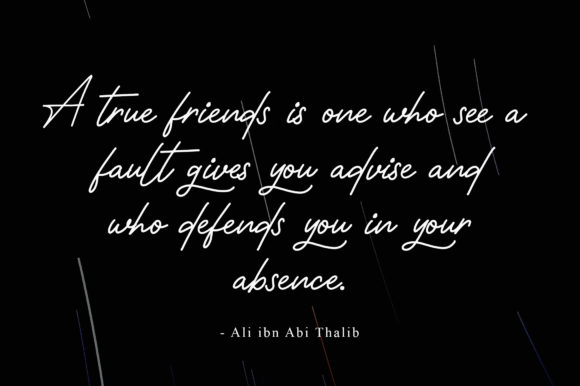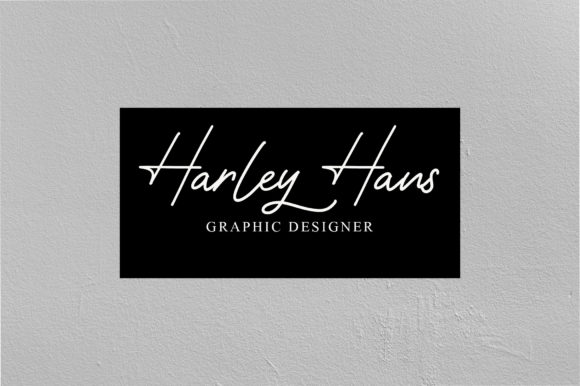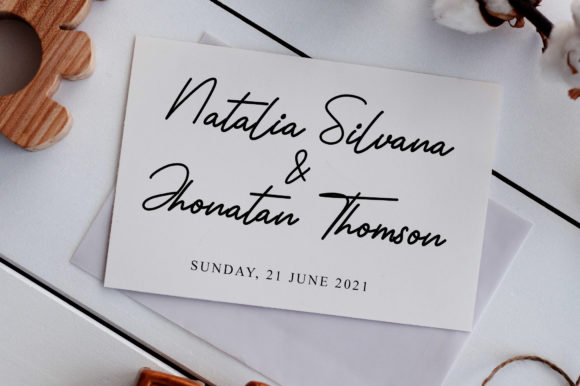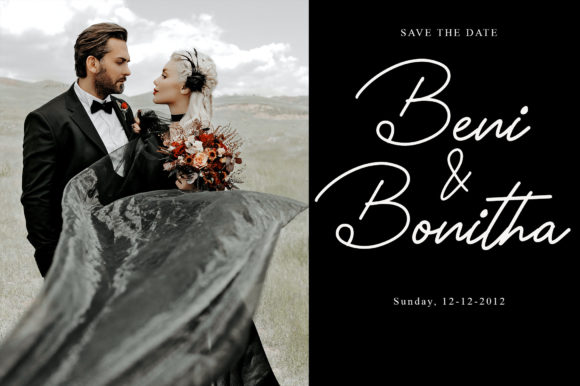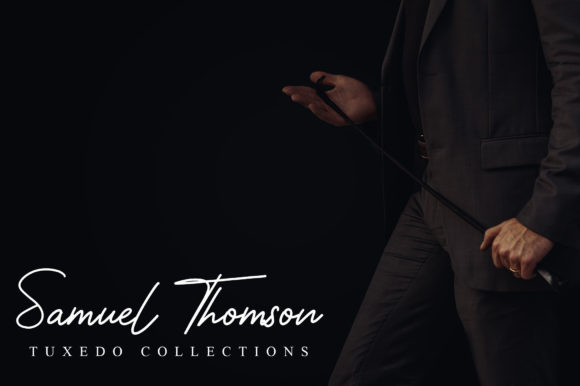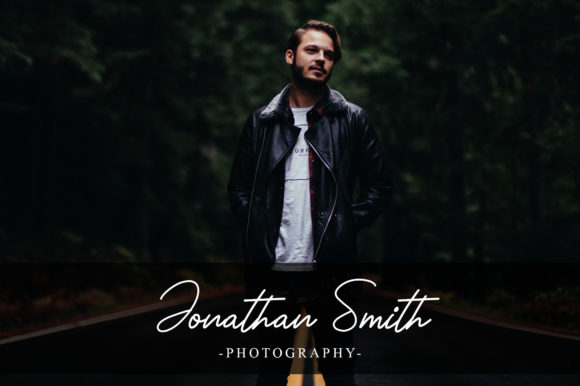
Introducing Handsetting: The Elegant Script Font for Your Designs
Are you tired of using the same old fonts in your designs? Do you want to add a touch of elegance and class to your work? Look no further than Handsetting, a lovely and delicate script font that’s perfect for designers and crafters alike. In this article, we’ll take a closer look at Handsetting and explore its features, benefits, and uses.
What is Handsetting?
Handsetting is a beautifully crafted script font that’s designed to add a touch of sophistication to your designs. With its delicate lines and elegant curves, this font is perfect for creating stunning text-based designs that exude refinement and poise. Whether you’re working on a logo, a brochure, or a website, Handsetting is the perfect choice for anyone looking to add a touch of class to their work.
Features of Handsetting
So, what makes Handsetting so special? Here are just a few of its key features:
- Delicate lines and curves: Handsetting’s lines and curves are carefully crafted to create a sense of elegance and refinement.
- Script font style: This font’s script style is perfect for creating flowing, connected text that’s both beautiful and easy to read.
- High-quality design: Handsetting is designed with high-quality graphics in mind, making it perfect for use in a variety of design applications.
- Easy to read: Despite its delicate nature, Handsetting is surprisingly easy to read, making it perfect for use in body text as well as headings.
Benefits of Using Handsetting
So, why should you choose Handsetting for your designs? Here are just a few benefits of using this lovely font:
- Adds elegance to your designs: Handsetting’s elegant lines and curves add a touch of sophistication to any design.
- Perfect for creative projects: Whether you’re working on a logo, a brochure, or a website, Handsetting is the perfect choice for creative projects that require a touch of class.
- Versatile: Handsetting can be used in a variety of design applications, from print to digital media.
- Easy to pair with other fonts: Handsetting pairs beautifully with other fonts, making it easy to create stunning font combinations.
Uses of Handsetting
So, what can you use Handsetting for? Here are just a few ideas to get you started:
- Logos and branding: Handsetting is perfect for creating elegant logos and branding materials that exude refinement and poise.
- Print design: Use Handsetting in brochures, flyers, and other print materials to add a touch of class to your designs.
- Web design: Handsetting is also perfect for use in web design, adding a touch of elegance to your website’s typography.
- Stationery and invitations: Use Handsetting to create beautiful stationery and invitations that are sure to impress.
Tips for Using Handsetting
Here are a few tips for getting the most out of Handsetting:
- Use it sparingly: While Handsetting is a beautiful font, it can be overwhelming if used too much. Use it sparingly to add a touch of elegance to your designs.
- Pair it with other fonts: Handsetting pairs beautifully with other fonts, so don’t be afraid to experiment with different font combinations.
- Adjust the size and color: Experiment with different sizes and colors to find the perfect look for your design.
In conclusion, Handsetting is a lovely and delicate script font that’s perfect for designers and crafters looking to add a touch of elegance and class to their designs. With its delicate lines and curves, script font style, and high-quality design, Handsetting is the perfect choice for anyone looking to create stunning text-based designs. Whether you’re working on a logo, a brochure, or a website, Handsetting is sure to impress. So why not give it a try and see the difference it can make in your designs?